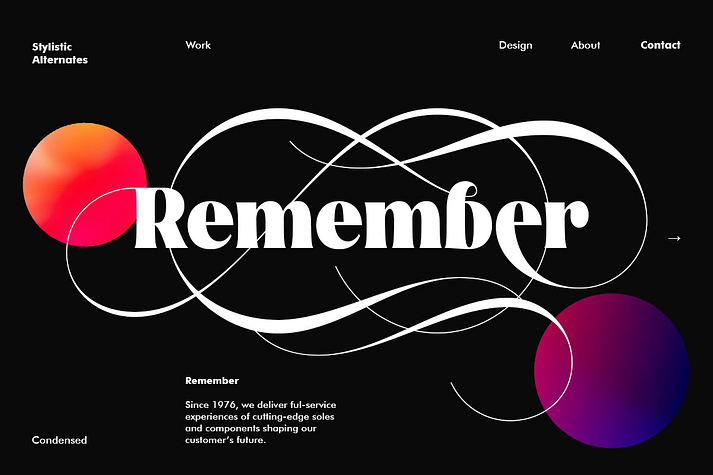
Glosta
Glosta is a display serif font family. This typeface has three styles and was published by TRF Fonts.
Glosta is a serif font that comes with a very beautiful change character that will bring a touch of luxury and style to your projects. Glosta is perfect for editorial design, branding, headings, logos, magazines and more.
Glosta has 650 glyphs and 290 alternate characters, including multiple language support. With OpenType features with an elegant alternative style